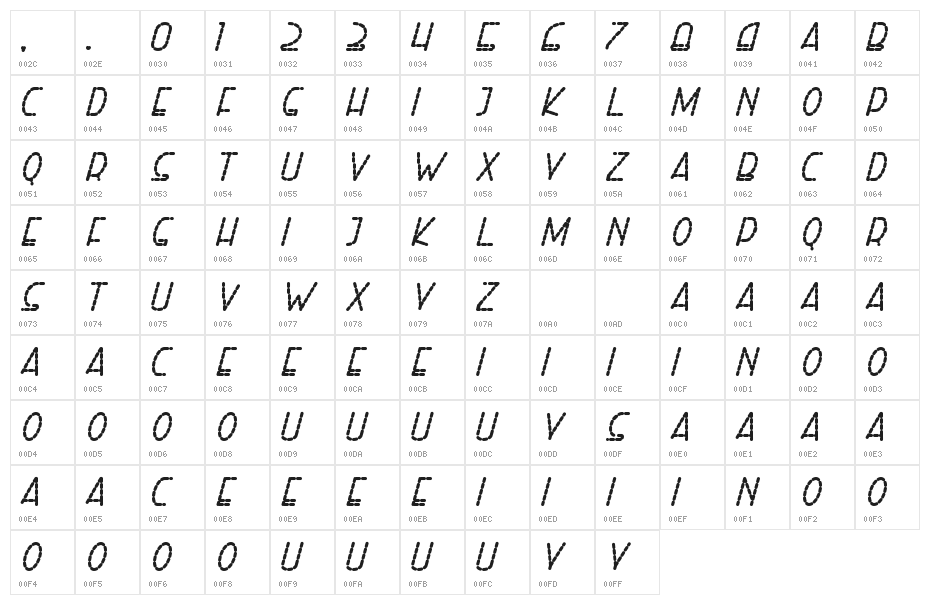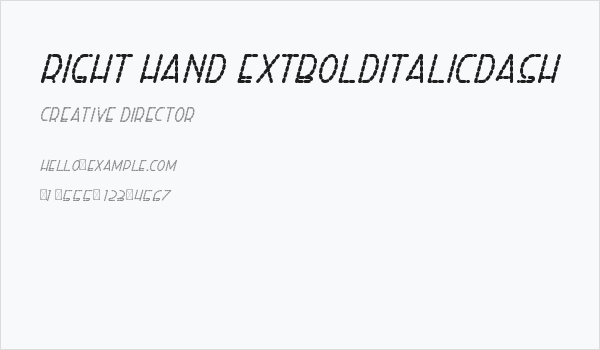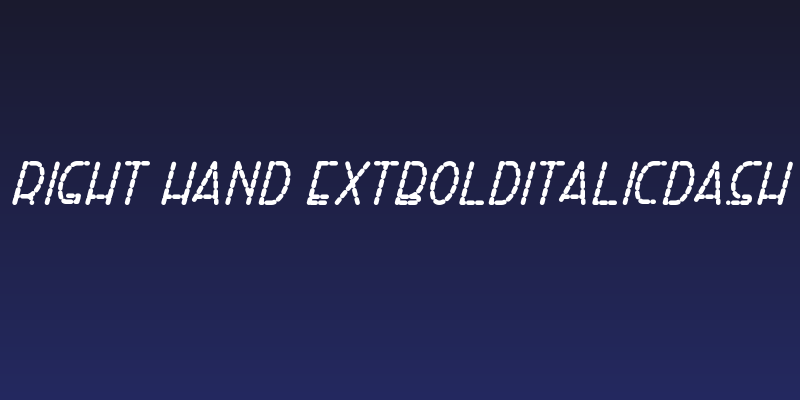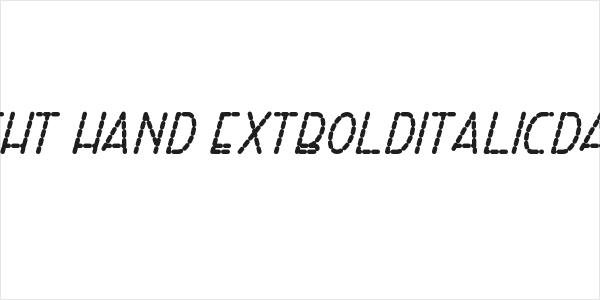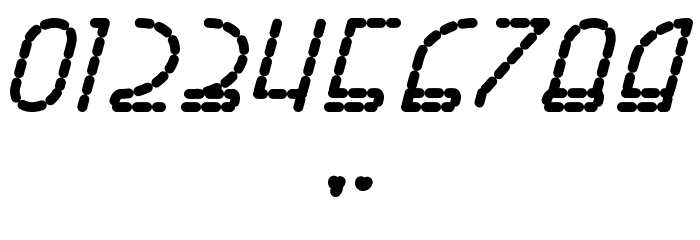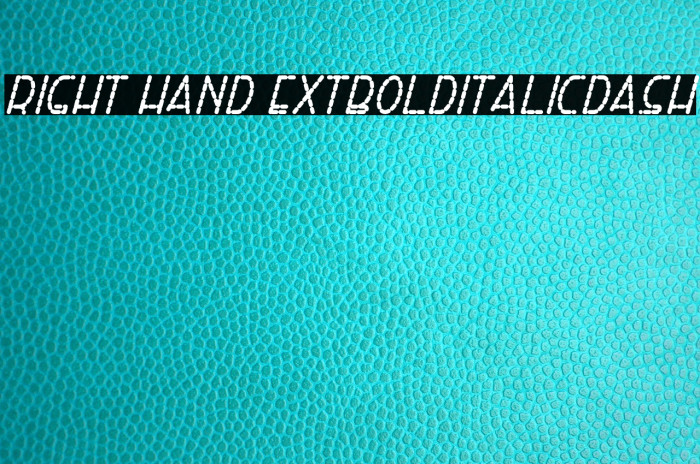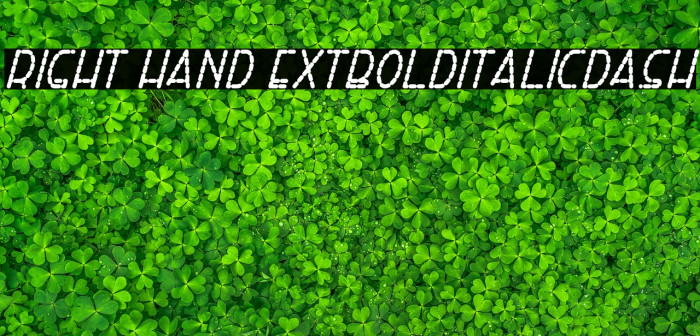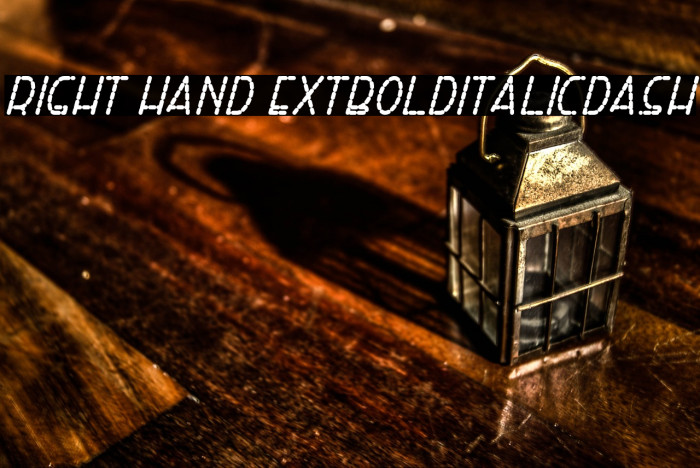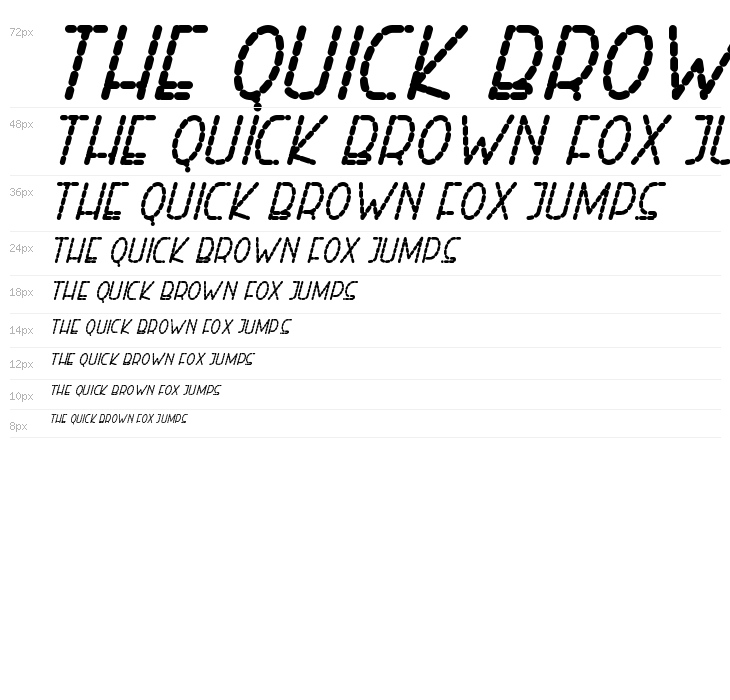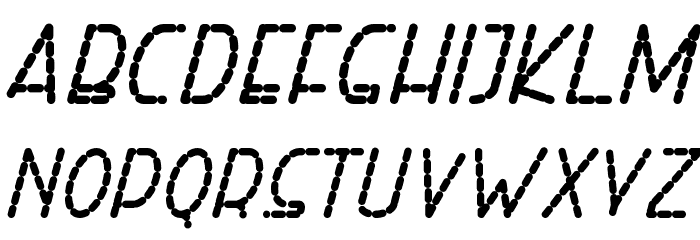
Right Hand ExtBoldItalicDash Font
Right Hand ExtBoldItalicDash Description
This font features a unique dotted design that gives it a modern and dynamic appearance. The characters are composed of a series of bold, rounded dots that form each letter and number, creating a sense of movement and rhythm. The italic style adds a forward-leaning slant, enhancing its energetic and contemporary feel. The extended width of the characters provides a spacious and open look, making it stand out in any design. The font's bold weight ensures strong visibility, while the medium contrast between the dots and the background maintains readability. This distinctive style is perfect for projects that require a playful yet professional touch.